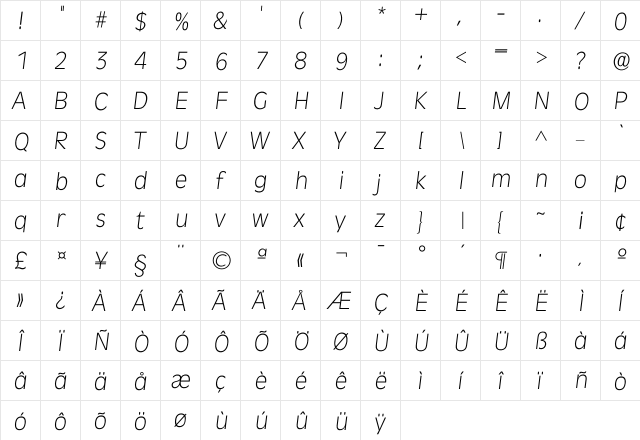
Iravenna Xlight
Design Context for Iravenna Typeface
Iravenna offers clean, dependable letterforms without strong stylistic allegiance, making it a practical choice for designers who need flexibility. Its slender proportions lend an understated elegance to any composition.
Pro Tip: Use Iravenna in both headline and body roles to test its range before committing to a single application.